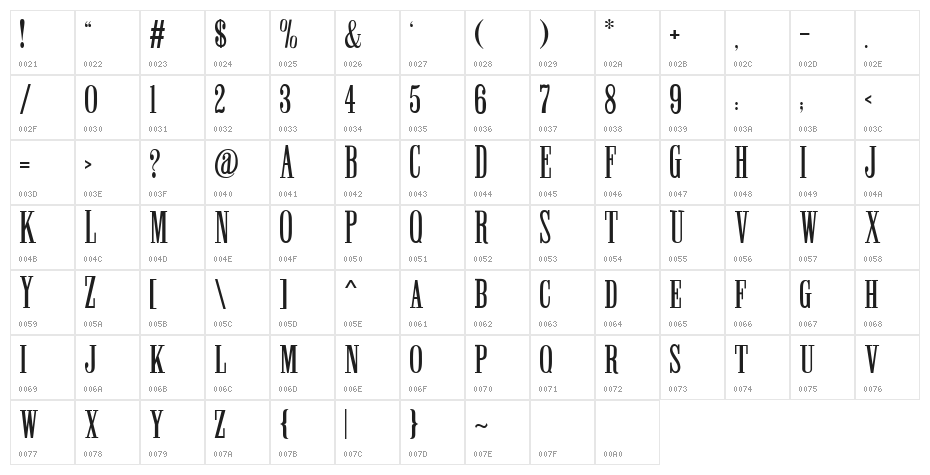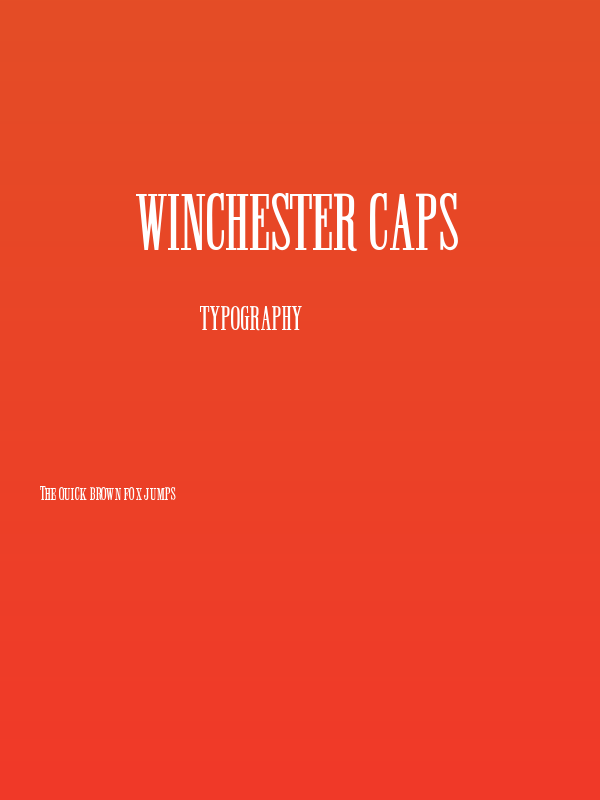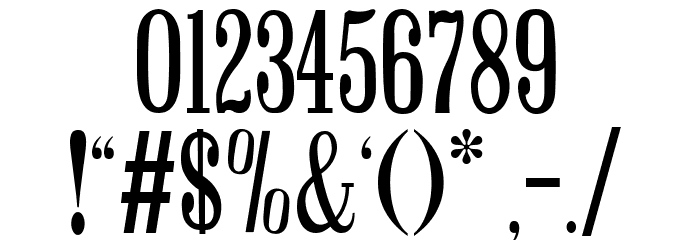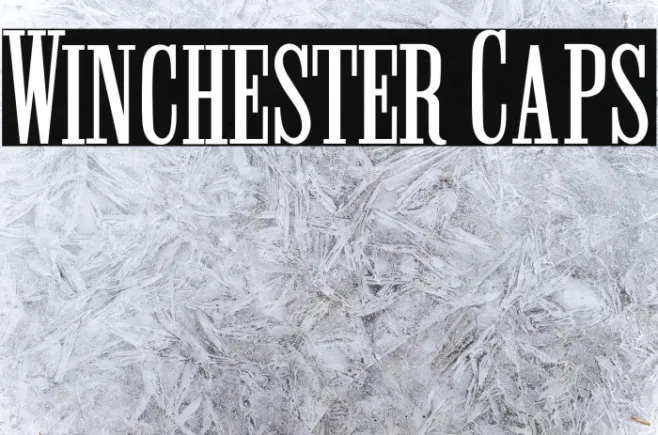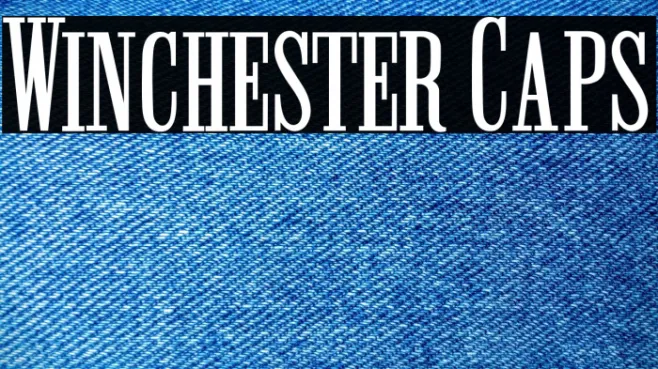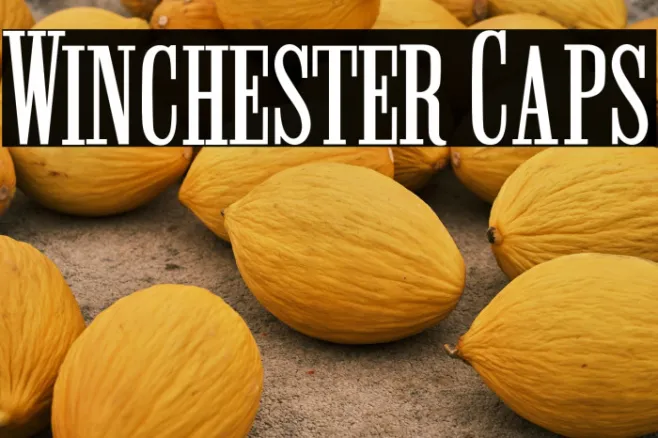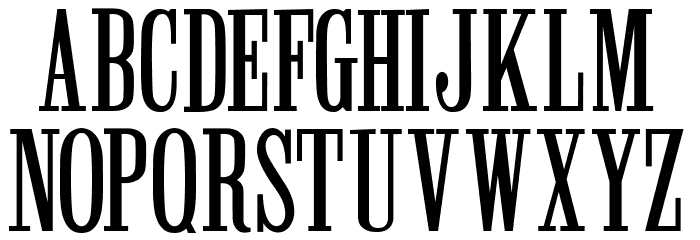
Winchester Caps Font
Winchester Caps Description
This typeface features a bold and commanding presence with its tall, narrow letterforms and strong vertical emphasis. The serifs are pronounced, adding a touch of elegance and sophistication to the overall design. The uppercase letters are particularly striking, with their elongated shapes and consistent stroke widths, creating a sense of uniformity and balance. The numerals are equally bold, maintaining the font's authoritative style. Special characters are designed with the same attention to detail, ensuring they complement the alphabet seamlessly. This font is ideal for making a statement, whether in headlines, posters, or branding materials.